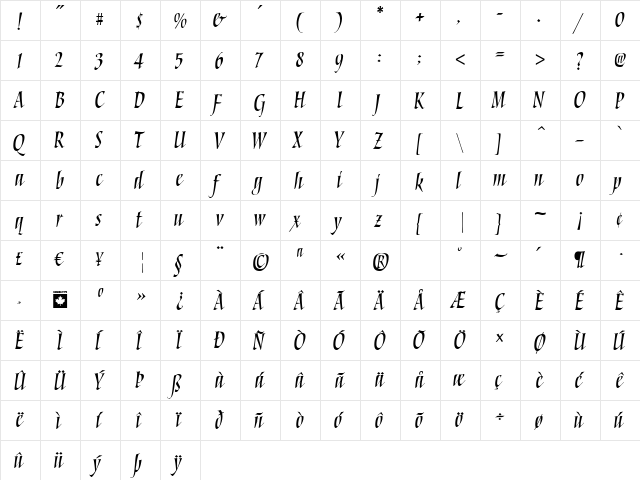
Torquemada One Bold
| Foundry | Philip Bouwsma and Canada Type |
Design Context for Torquemada One Typeface
Torquemada One is a composed and adaptable typeface that performs quietly and consistently across a wide range of design contexts. The heavy weight commands attention and anchors typographic hierarchies.
Pro Tip: Pair Torquemada One with a font of contrasting weight or personality to build a more expressive typographic hierarchy.